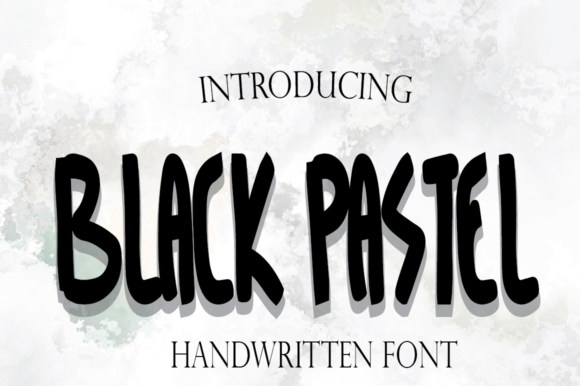
Introducing Black Pastel, the captivating display font that will ignite your creative spirit! This enchanting font is your secret weapon for crafting unforgettable monograms, transforming ordinary designs into extraordinary masterpieces.
With its playful yet elegant strokes, Black Pastel captures the innocence and wonder of toddlerhood. Imagine adorning your little one's belongings with a monogram that whispers tales of their laughter and boundless imaginations. Let Black Pastel weave its magic, creating a timeless keepsake that will cherish those precious moments forever.
Beyond monograms, Black Pastel unleashes a world of possibilities for your creations. Its versatility shines in product packaging, where it commands attention and enchants customers. Elevate your branding with its distinctive style, ensuring that your products stand out in a crowded marketplace.
Unleash your creativity with Black Pastel and let your designs soar. Its effortless elegance will add a touch of sophistication to your marketing materials, captivating audiences and leaving a lasting impression. Whether it's a captivating banner that sparks curiosity or an irresistible social media post that ignites engagement, Black Pastel will empower your message with a visual flair that resonates deeply.
But the magic of Black Pastel doesn't stop there. Its inviting typography has a mesmerizing effect that draws viewers in and sparks a desire to connect. This font is more than just a design element; it's a bridge that connects your creations with the hearts of your audience.
So, whether you're a seasoned designer or a creative enthusiast, embrace the enchanting power of Black Pastel. Let its strokes ignite your imagination, transform your designs into captivating masterpieces, and forge a lasting connection with your audience.